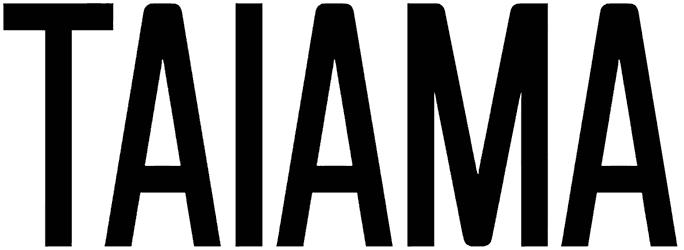
Taiama Font
If you’re a fan of modern effects with a lucid design, you’ll be glad to have this sans-serif font in your collection. This masterwork will apply the approachable effect to your texts and run a light look and soft impression that gives the whole thing a more amazing look.